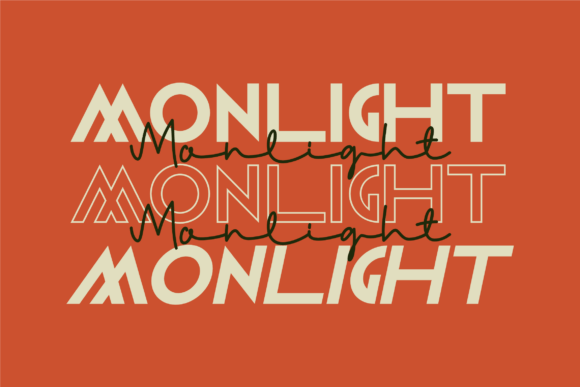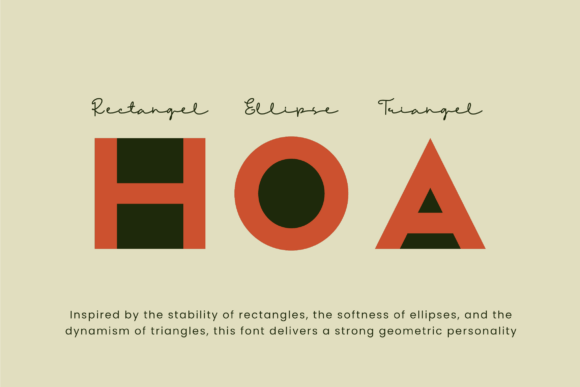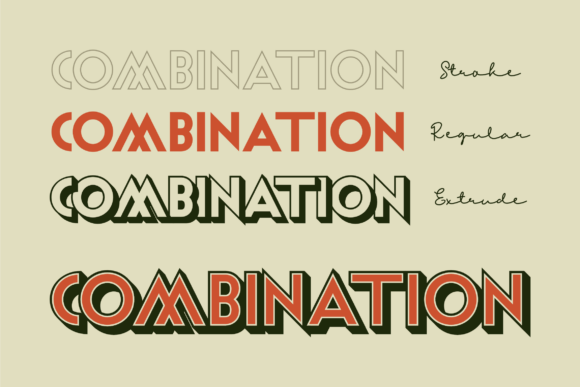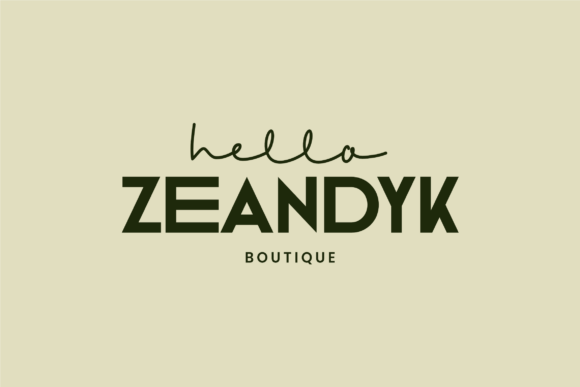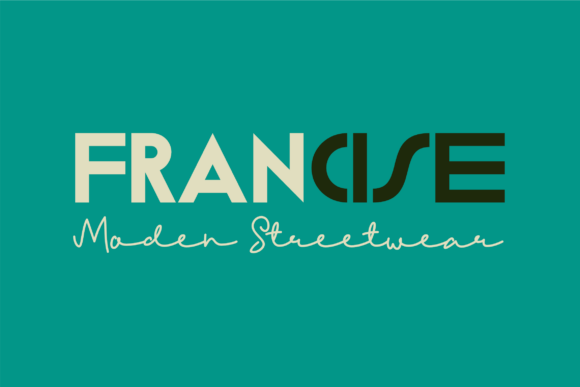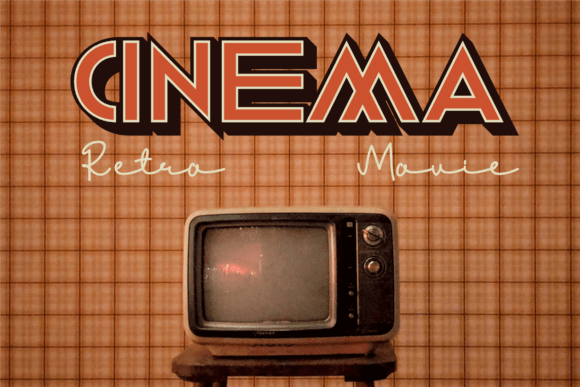
The Perfect Blend of Vintage Charm and Modern Elegance
Have you ever found yourself pouring over old photographs, mesmerized by the nostalgic feel of a bygone era? Perhaps it’s the faded colors, the distressed textures, or the subtle imperfections that evoke a sense of timelessness. Whatever it is, it’s moments like these that inspire us to create something truly special – like the Dagisco Grande Font.
This unique font duo combines a retro-style layered sans serif with an elegant signature script, perfectly capturing the essence of the vintage era while remaining relevant in modern design. With the Dagisco Grande Font, designers can add a touch of sophistication and personality to their projects, making it an invaluable tool for anyone looking to elevate their visual identity.
- Unique Characteristics: Dagisco Grande Font features a unique blend of classic and modern design elements, with intricate details and ornaments.
Dagisco Grande Font Review
Overall, I found the Dagisco Grande Font to be a solid addition to any design project. Here are some of the things that work well: ✨
- Unique aesthetic: The font’s elegant and refined design makes it perfect for creating a sophisticated look.
- Good legibility: Dagisco Grande is easy to read, even at smaller font sizes.
- Compatible with various designs: This font can be used in a range of design contexts, from headings to body text.
- Limited language support: Dagisco Grande only supports a limited number of languages, which may be a problem for multilingual projects.
- Lack of bold/italic variations: While the font looks great in its standard weight, it would be nice to have more variations for added emphasis.
Overall, I think Dagisco Grande is a great font for projects that require a touch of elegance and sophistication. While it may not be the most versatile font, its unique design and good legibility make it a solid choice for designers looking for a high-end look.
Tips for Getting the Most Out of Dagisco Grande Font
To get the most out of Dagisco Grande Font, use it for headings and titles to add a touch of elegance to your designs. You can also use it in combination with other fonts to create a unique and eye-catching visual style.
Dagisco Grande Font is ideal for use in wedding invitations, event promotions, and luxury branding. It’s also a great choice for creating a sophisticated and elegant visual style in your designs.